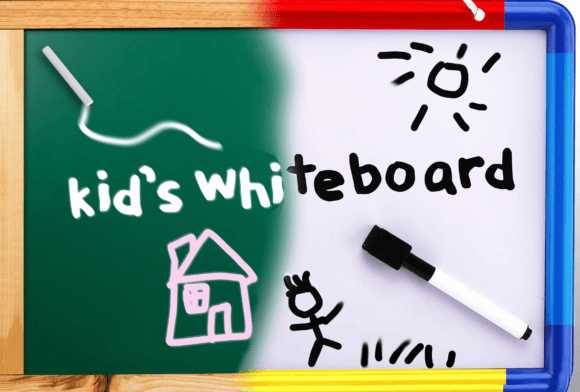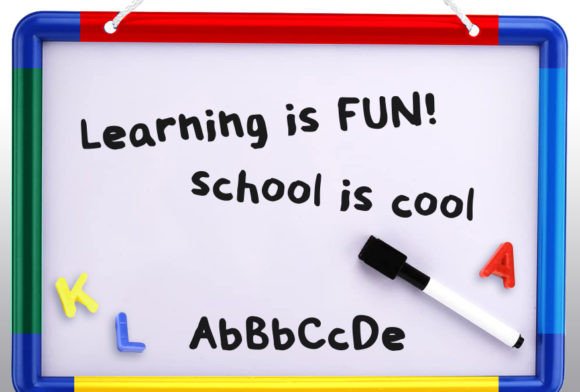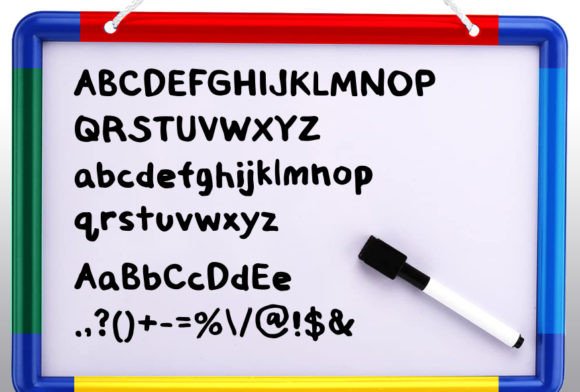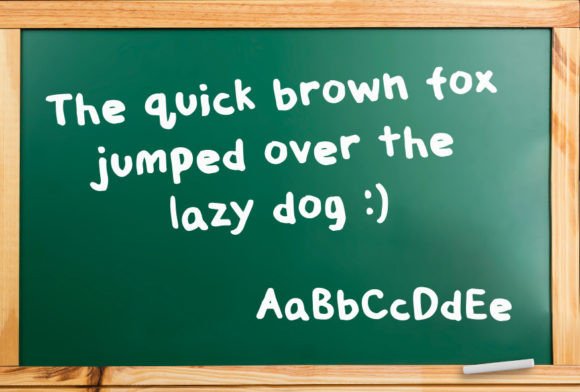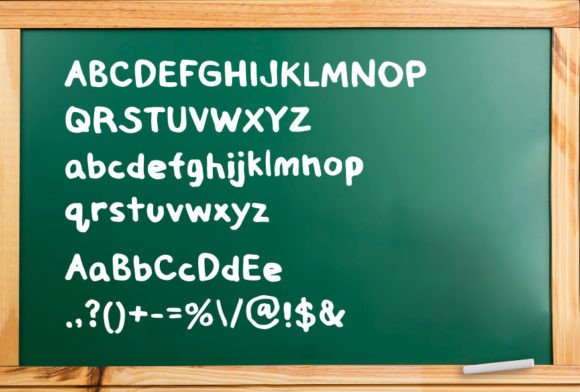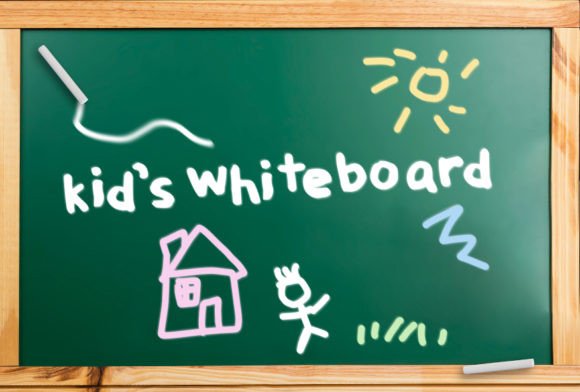
Kids Whiteboard Font
“Kids Whiteboard” is a whimsical and handwritten chalk font designed specifically for children-related projects. This bold, fun, and stylish font brings a playful and youthful vibe, making it perfect for a variety of creative applications. Whether you’re working on cute party invitations, printed quotes, standout packaging, or cool t-shirts, Kids Whiteboard is crafted to add a touch of charm and creativity to your designs.
The handwritten chalk style of Kids Whiteboard is reminiscent of playful doodles on a whiteboard, creating a friendly and approachable aesthetic. This font is not just a typeface; it’s a creative tool that allows you to infuse a sense of joy and lightheartedness into your projects.
Imagine using Kids Whiteboard for adorable party invitations, where its bold and fun characters set the tone for a celebration. Picture it on printed quotes, adding a touch of whimsy to motivational messages. Whether applied to standout packaging or cool t-shirts, Kids Whiteboard is designed to be a font that brings a smile to the faces of both kids and the young at heart.
In summary, Kids Whiteboard is more than just a font; it’s a creative asset tailored for children-related projects. Its handwritten chalk style adds character and playfulness to your text, making it an ideal choice for projects where a bold, fun, and stylish look is desired. Let Kids Whiteboard be the font that transforms your designs into delightful and imaginative creations.